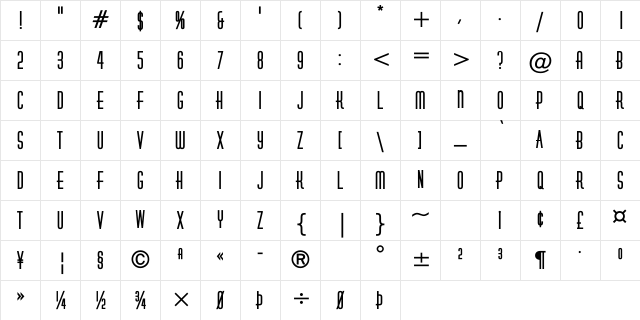
Huxley Titling Regular Free Font
Huxley Titling Regular
Foundry: BOUTON,
Designer: Gary David Bouton, after Walter Huxley 1935
Design Context for Huxley Titling
Huxley Titling is a composed and adaptable typeface that performs quietly and consistently across a wide range of design contexts.